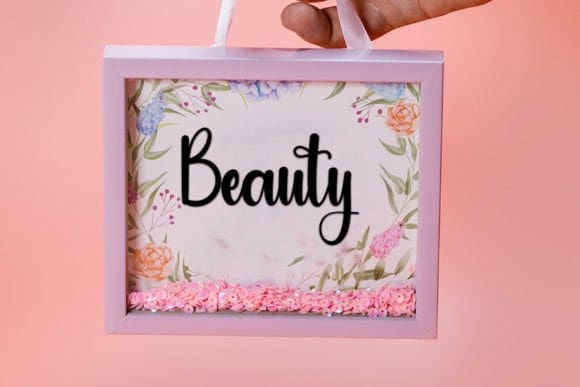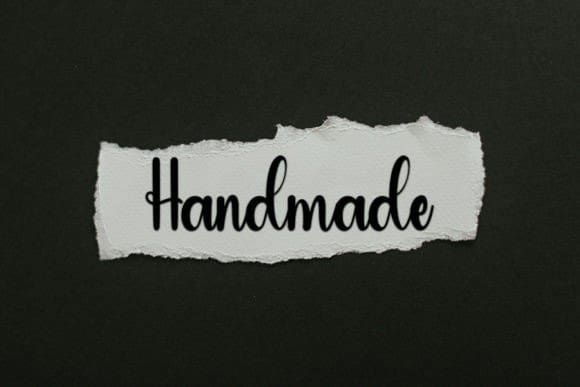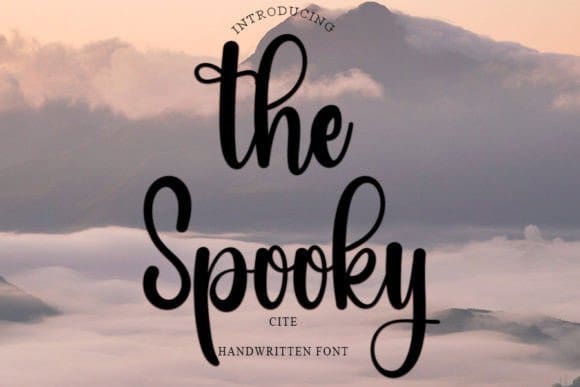
The Spooky Font
The Spooky Font is a neat and beautiful handwritten font described by an elegant touch, perfect for your favorite projects. Fall in love with its incredibly distinct and timeless style, and use it to create spectacular designs!